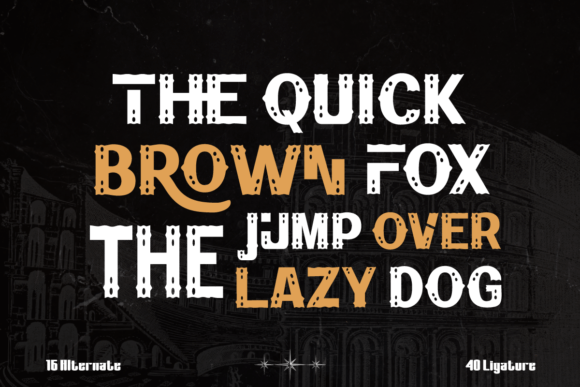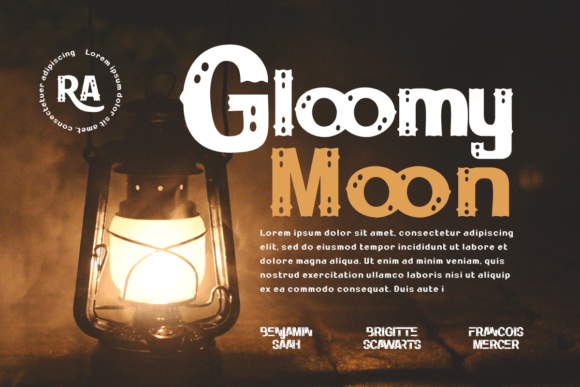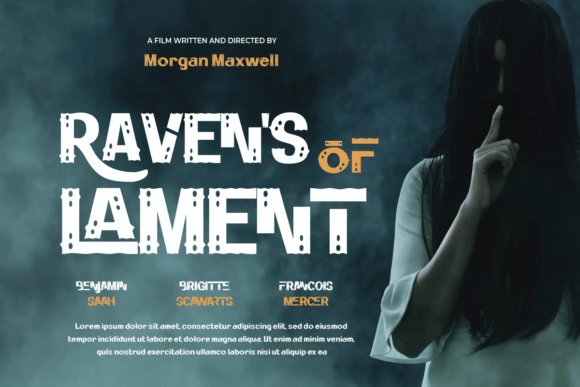
Introduction to Mrecail Font
Introducing Mrecail, a stunning and captivating typeface that will instantly grab the attention of your audience.
With its elegant and versatile design, Mrecail is the perfect choice for those seeking a unique and attention-grabbing typography solution .
Key Features of Mrecail Font
Why Choose Mrecail Font?
Mrecail Font offers exceptional quality and versatility, making it a valuable addition to your design toolkit. Whether you’re creating for personal projects or commercial use, Mrecail Font delivers professional results.